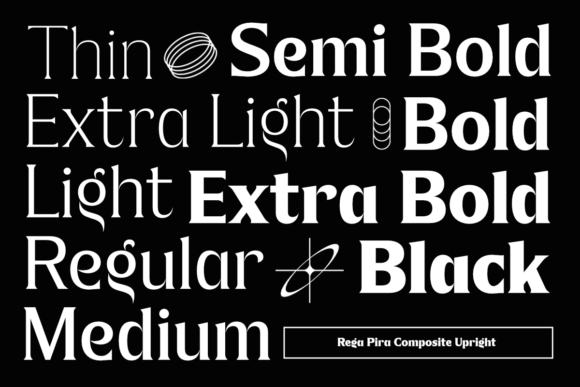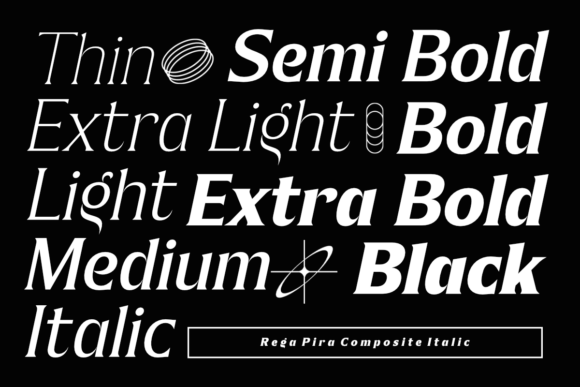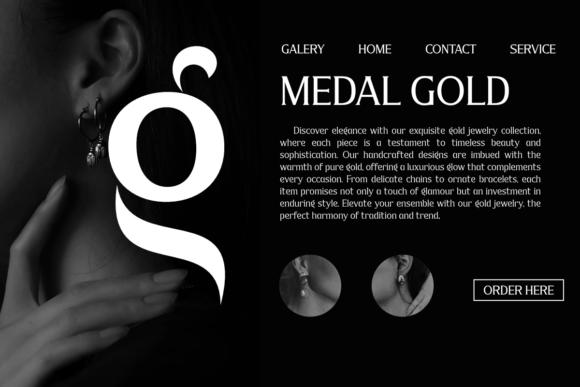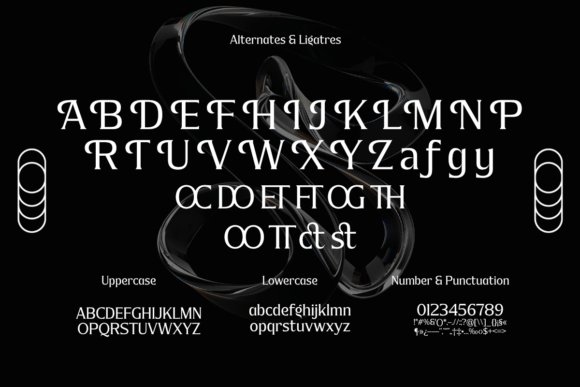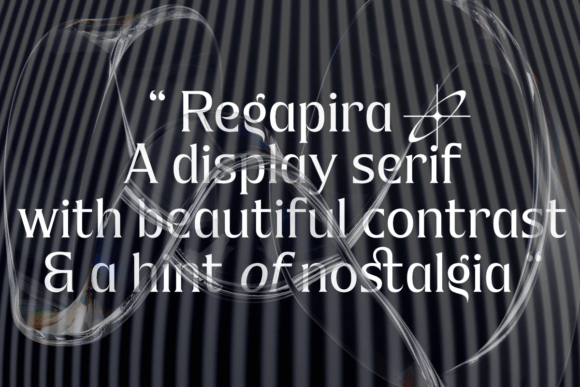
Introduction to Rega Pira Font
Introducing “Rega Pira”, a serif font family that embodies elegance in minimalism.
Crafted with precision, Rega Pira offers a clean and refined aesthetic that enhances the readability of any text Its character set is designed to convey a sense of sophistication, making it an ideal choice for high-end branding and editorial design.
Key Features of Rega Pira Font
Why Choose Rega Pira Font?